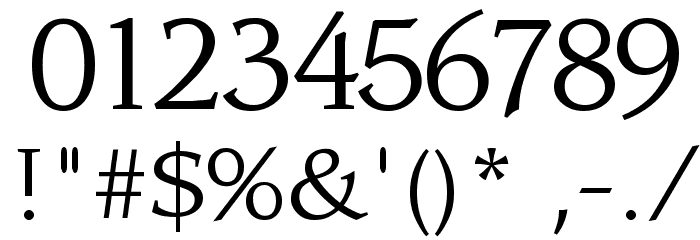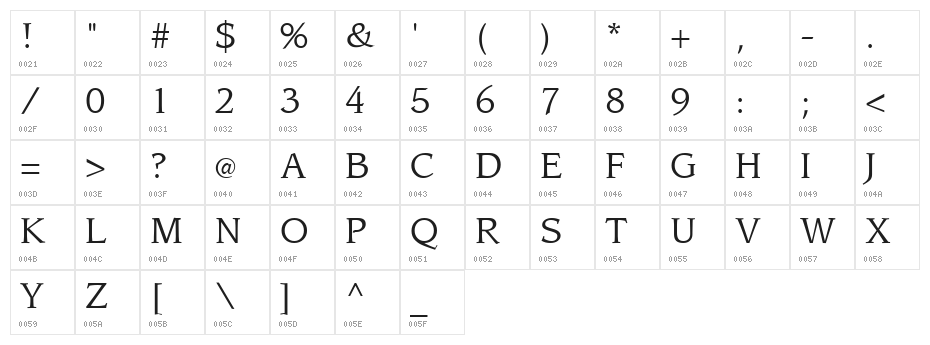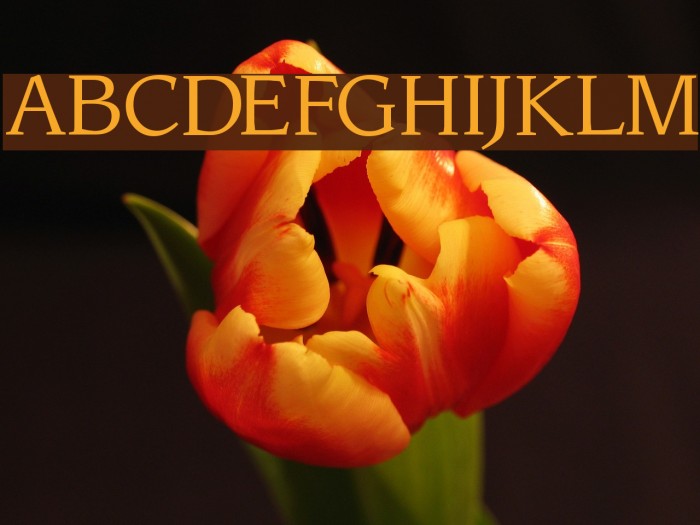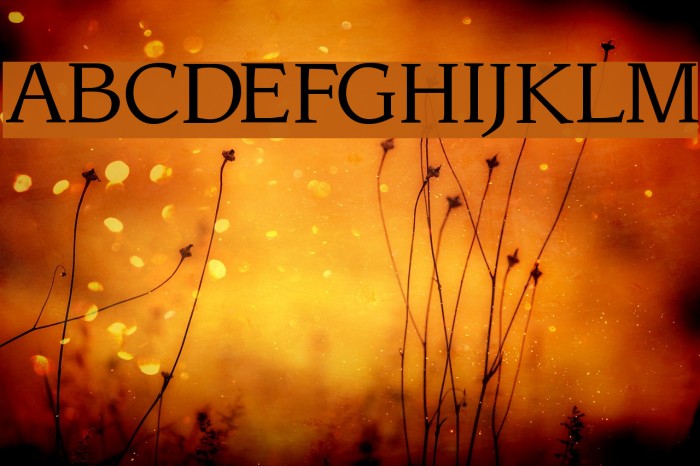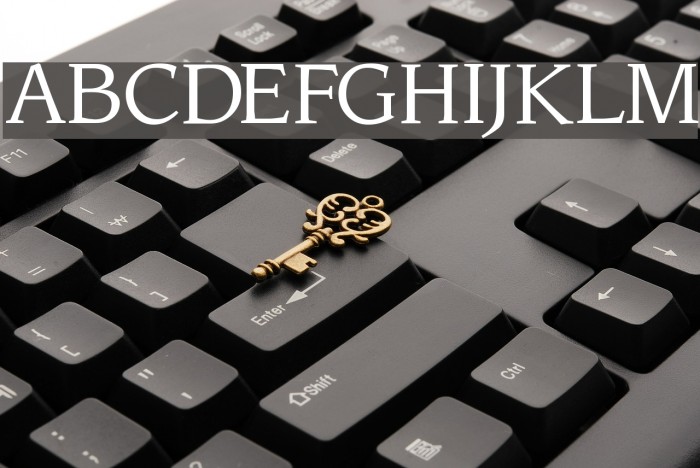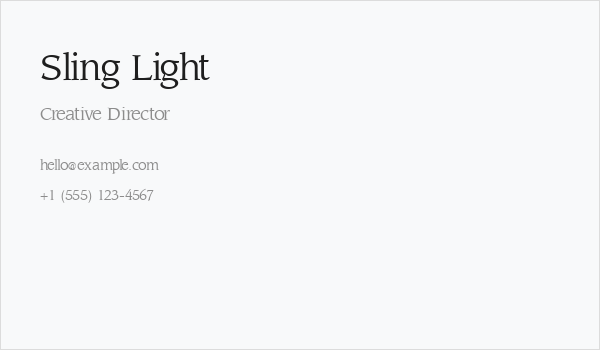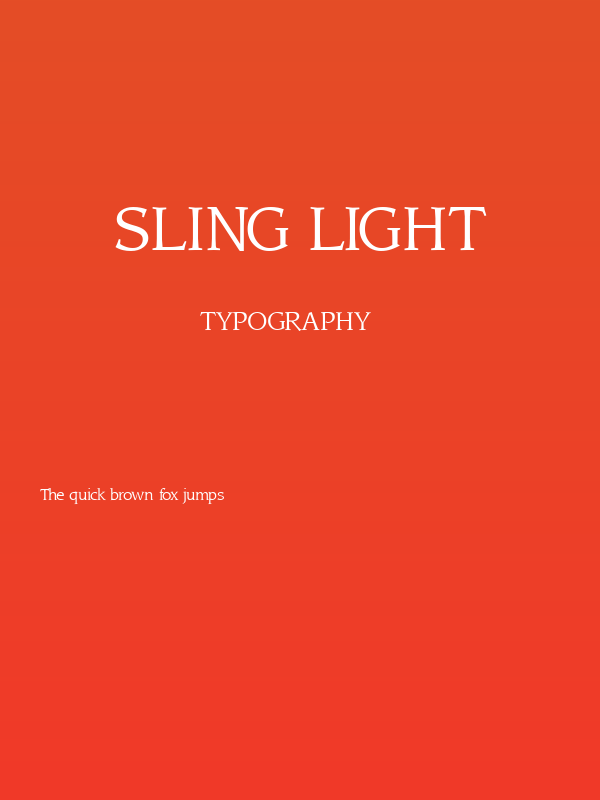
Sling Light Font
Sling Light Description
This font features a classic serif style with elegant, thin strokes and a refined appearance. The uppercase letters are tall and stately, while the lowercase letters maintain a consistent flow with subtle curves. The numerals are clear and balanced, making them easy to read. Special characters are designed with the same attention to detail, ensuring a cohesive look across all glyphs. The overall design is sophisticated, making it suitable for formal and professional applications.